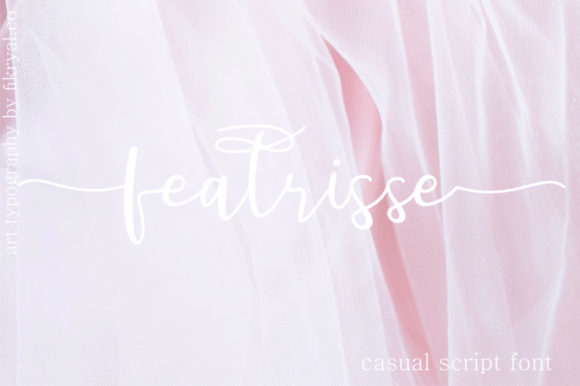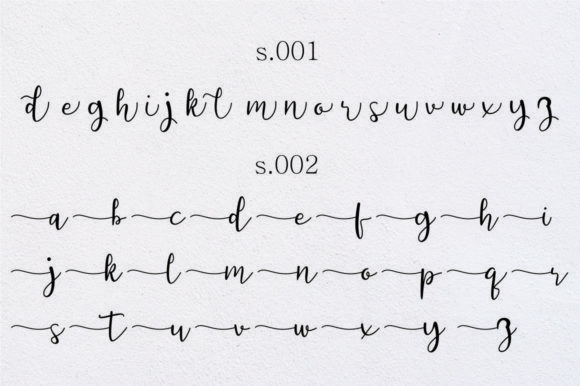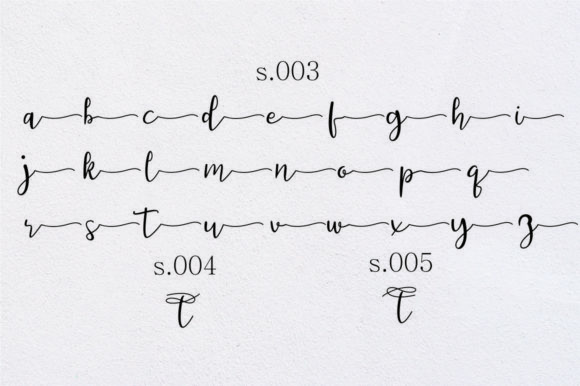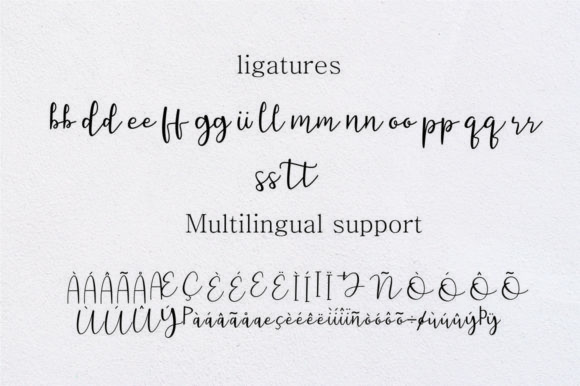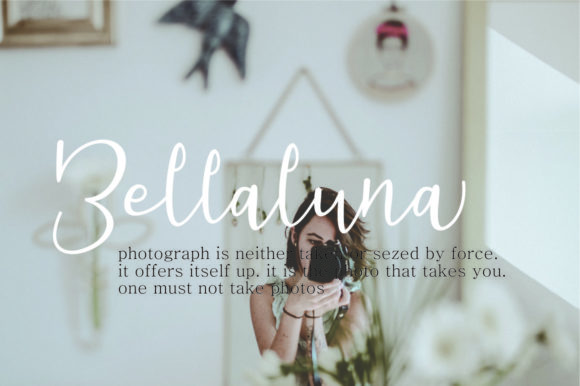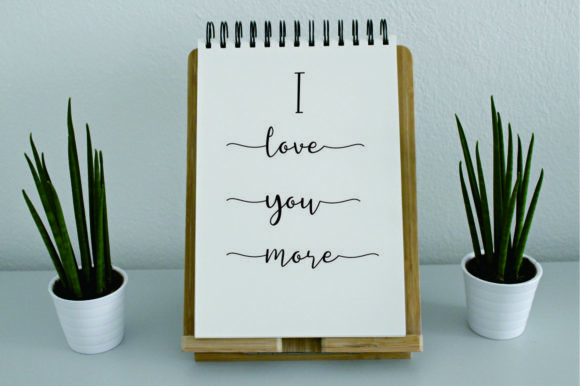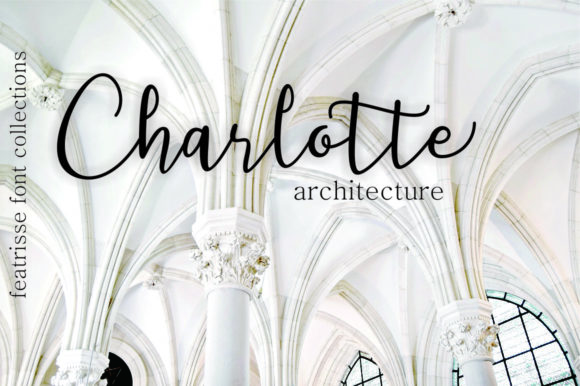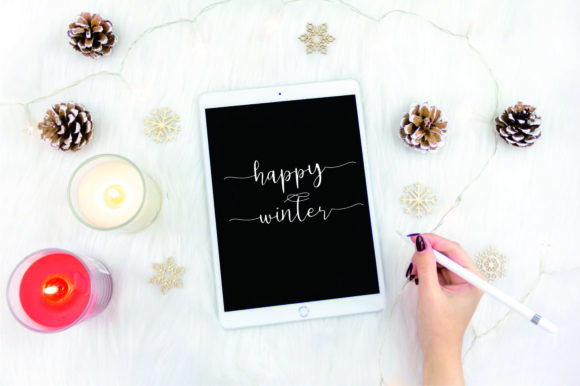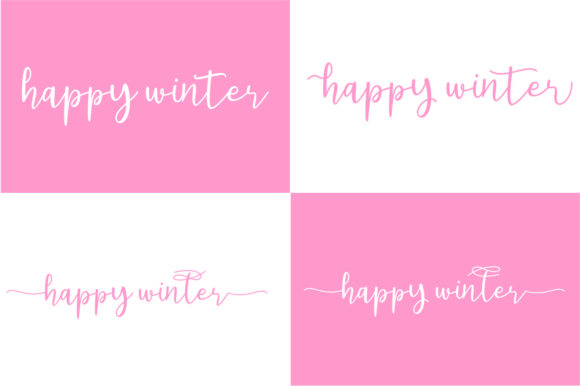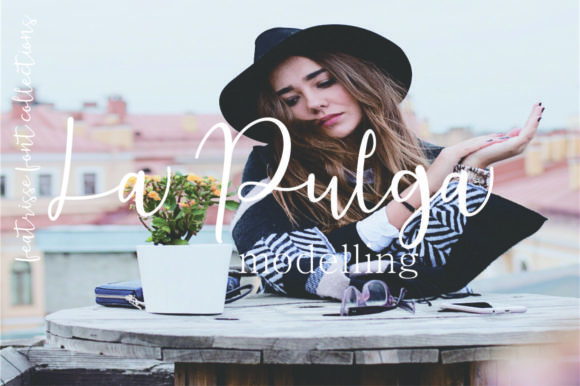
Featrisse Font
About Featrisse Font
The Featrisse is a casual, yet elegant script font. It was carefully created to add some luxuriousness to your designs.